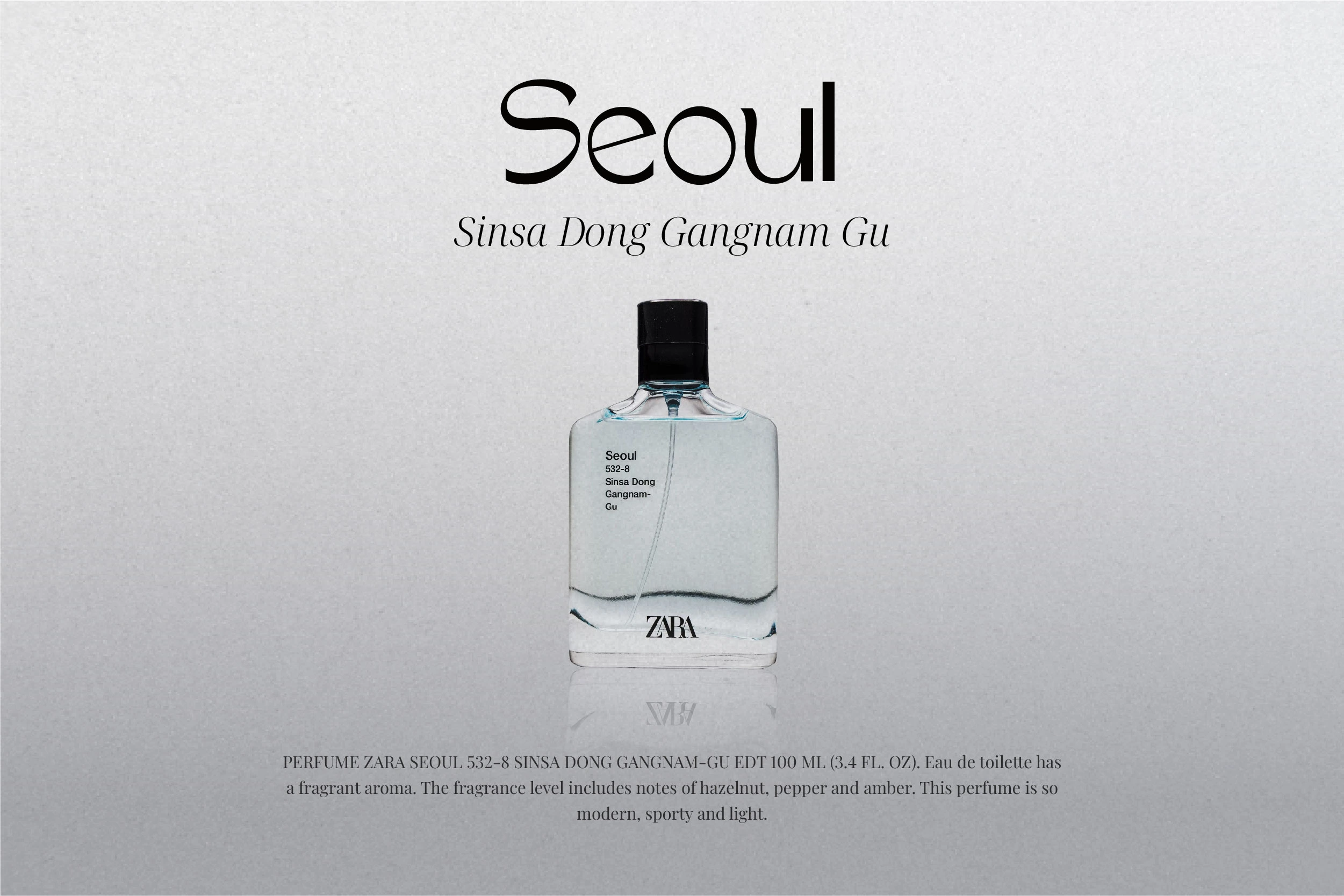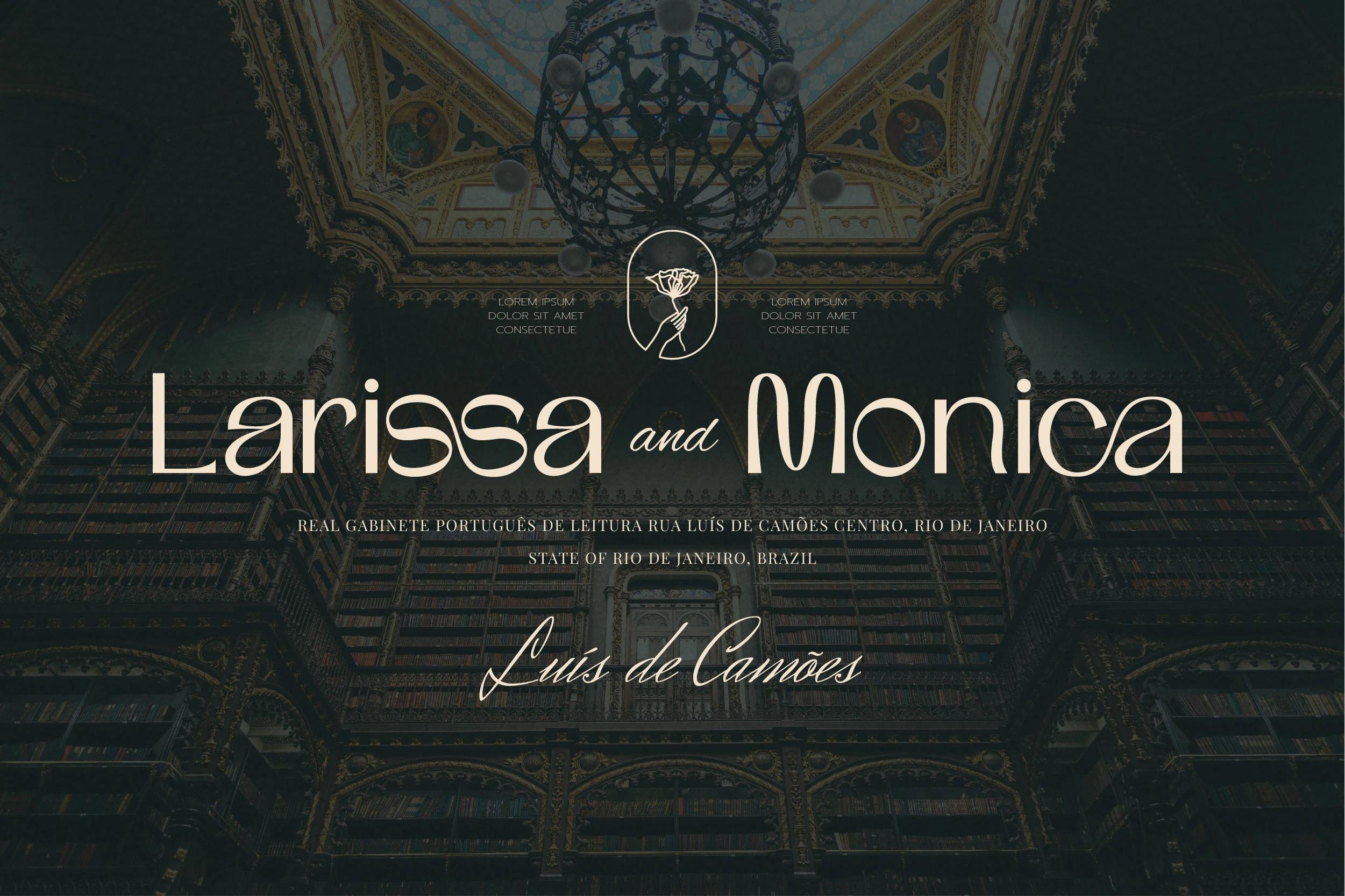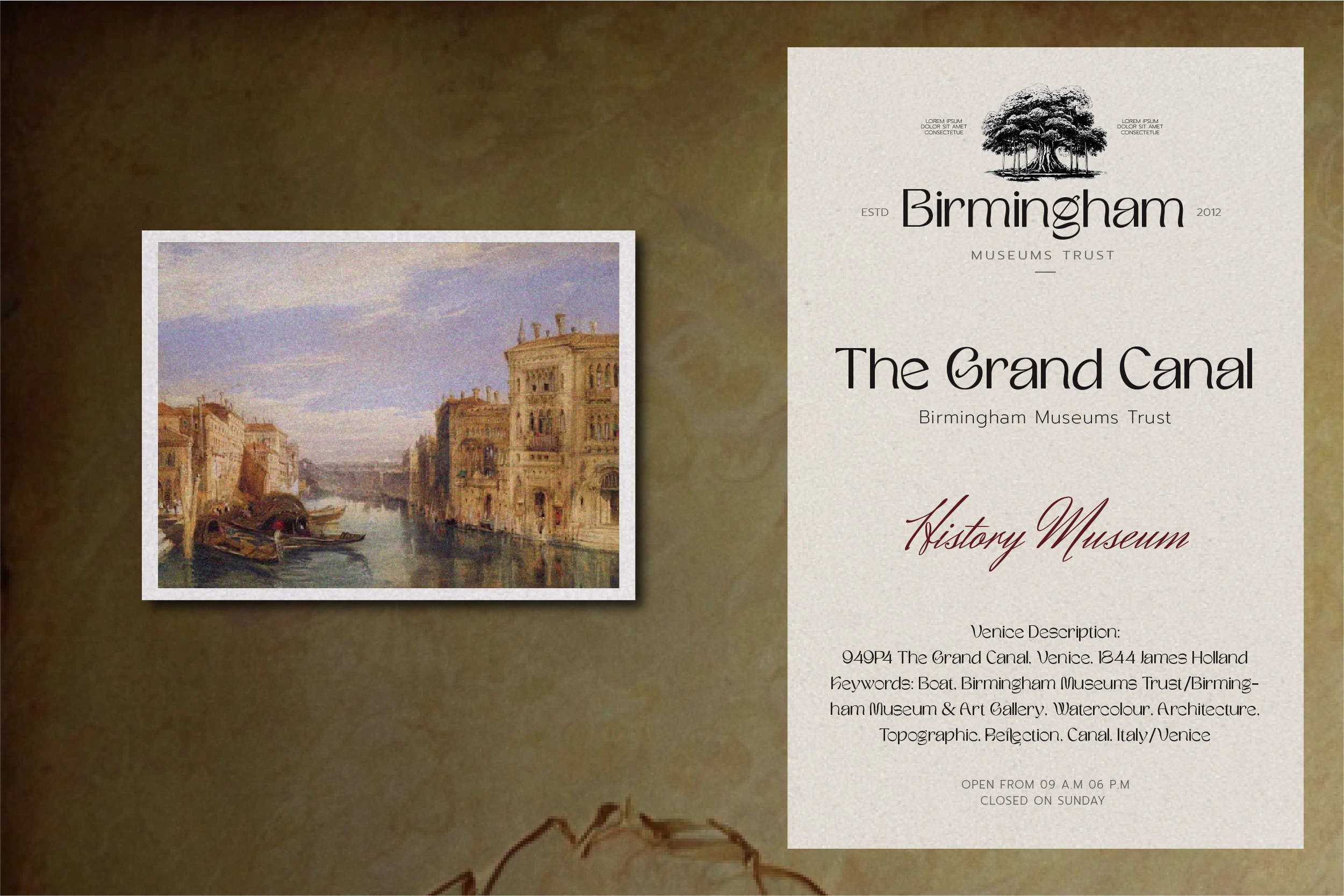
Floweria - The Beauty Sans Serif Font
A magnificence sans serif font with a modern feel. Equipped with multilanguages and ligatures to play around with! This font has a soft and unique look to the edges of the letters. That’s how this font was created to give it an elegant and authentic look!
A magnificence sans serif font with a modern feel. Equipped with multilanguages and ligatures to play around with!